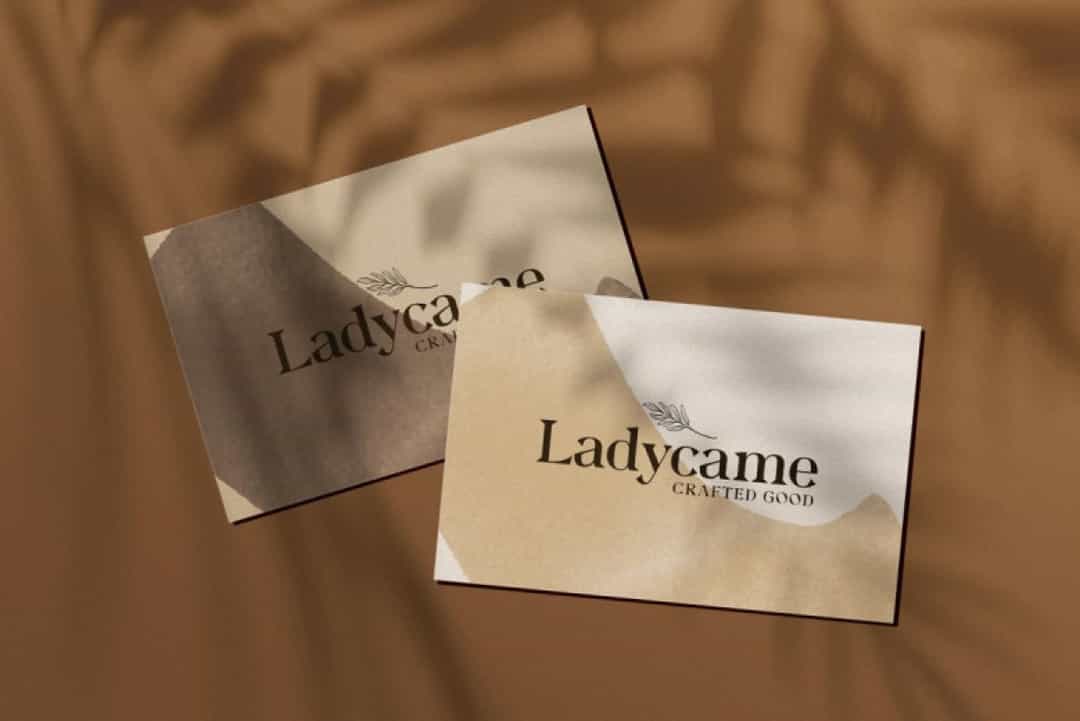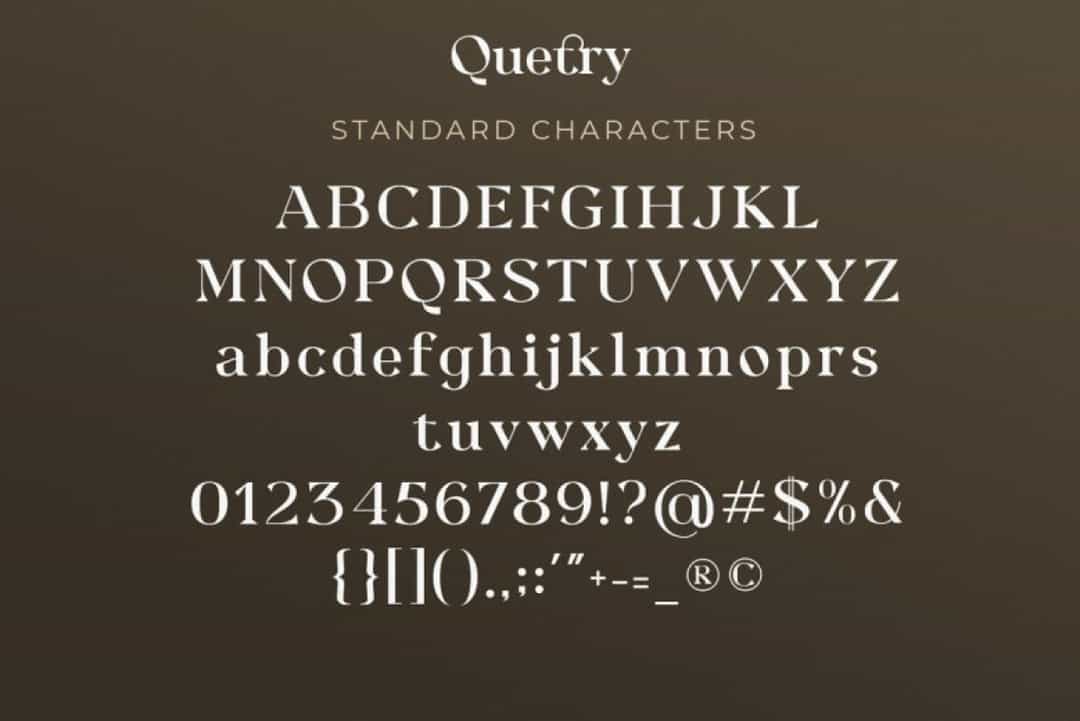
Quetry is a contemporary-style serif typeface featuring ligatures and alternatives which allows users to craft beautiful logos, quotes, blog posts, posts as well as branding projects such as magazine images wedding invitations.